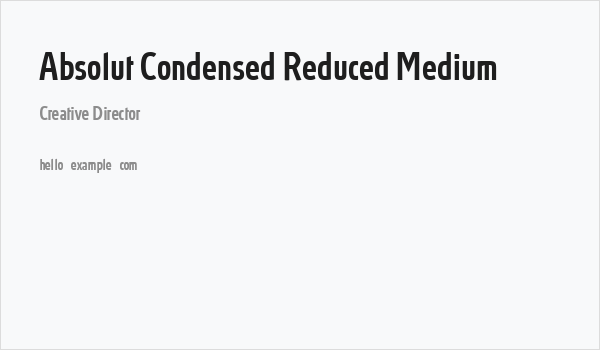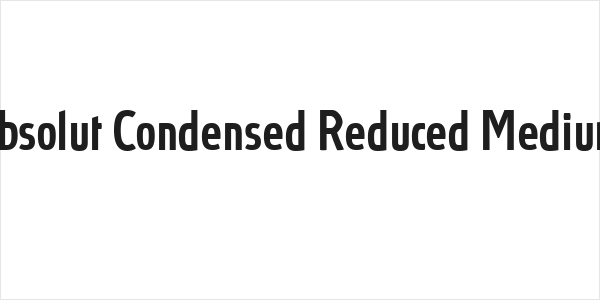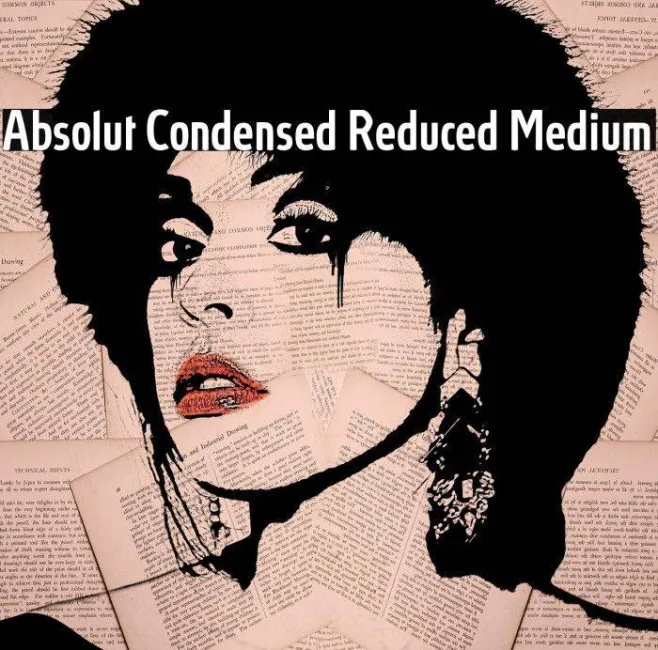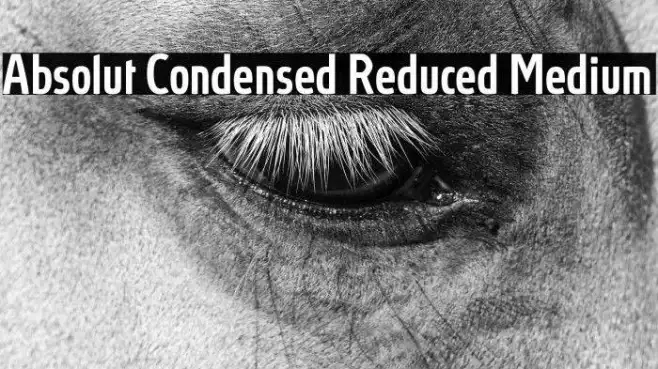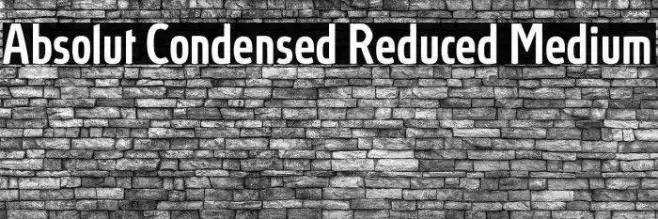
Absolut Condensed Reduced Medium Font
Absolut Condensed Reduced Medium Description
This font features a clean, modern sans-serif design with a condensed structure that gives it a compact appearance. The characters are bold and uniform, with a consistent stroke width that provides a strong visual impact. The uppercase letters are tall and slightly narrow, while the lowercase letters maintain a similar width, creating a harmonious balance. The font's geometric shapes and straight lines contribute to its contemporary feel, making it suitable for various design applications. The spacing between characters is tight, enhancing its condensed look and making it ideal for headlines or titles where space is limited.
| Proposed Projects | Ideal for branding, advertising, headlines, posters, and any design project requiring a strong, modern typeface. |